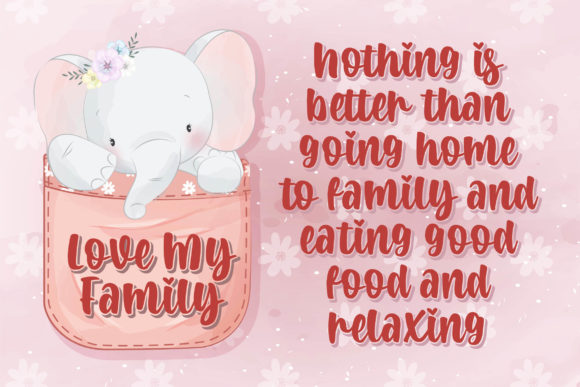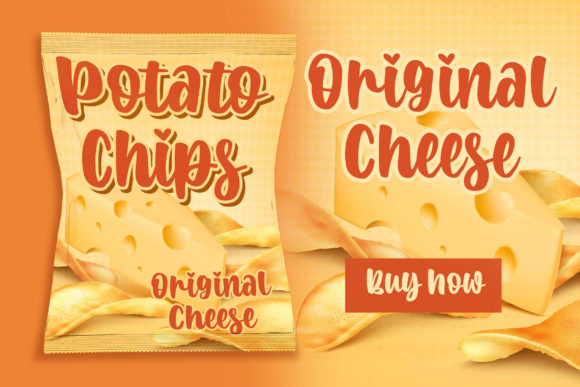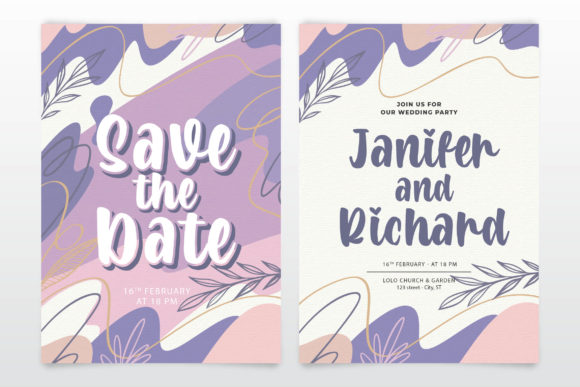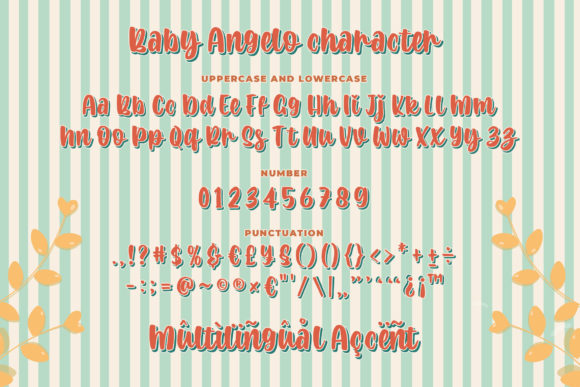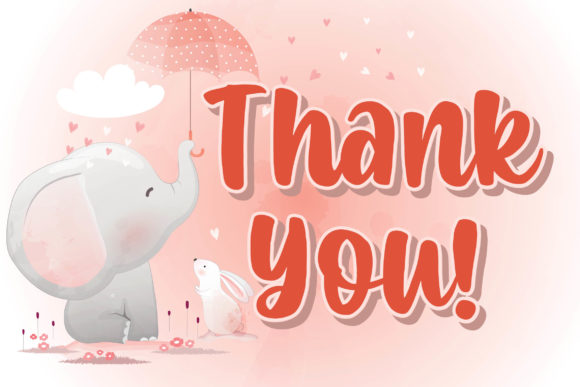
Baby Angelo Font
About Baby Angelo Font
Baby Angelo is inspired by classic typography and brings its own unique style to any design project. This fantastic script font is best suited for headlines of all sizes, as well as for blocks of text that have both maximum and minimum variations. Whether it’s for web, print, moving images or anything else – Baby Angelo will look spectacular.